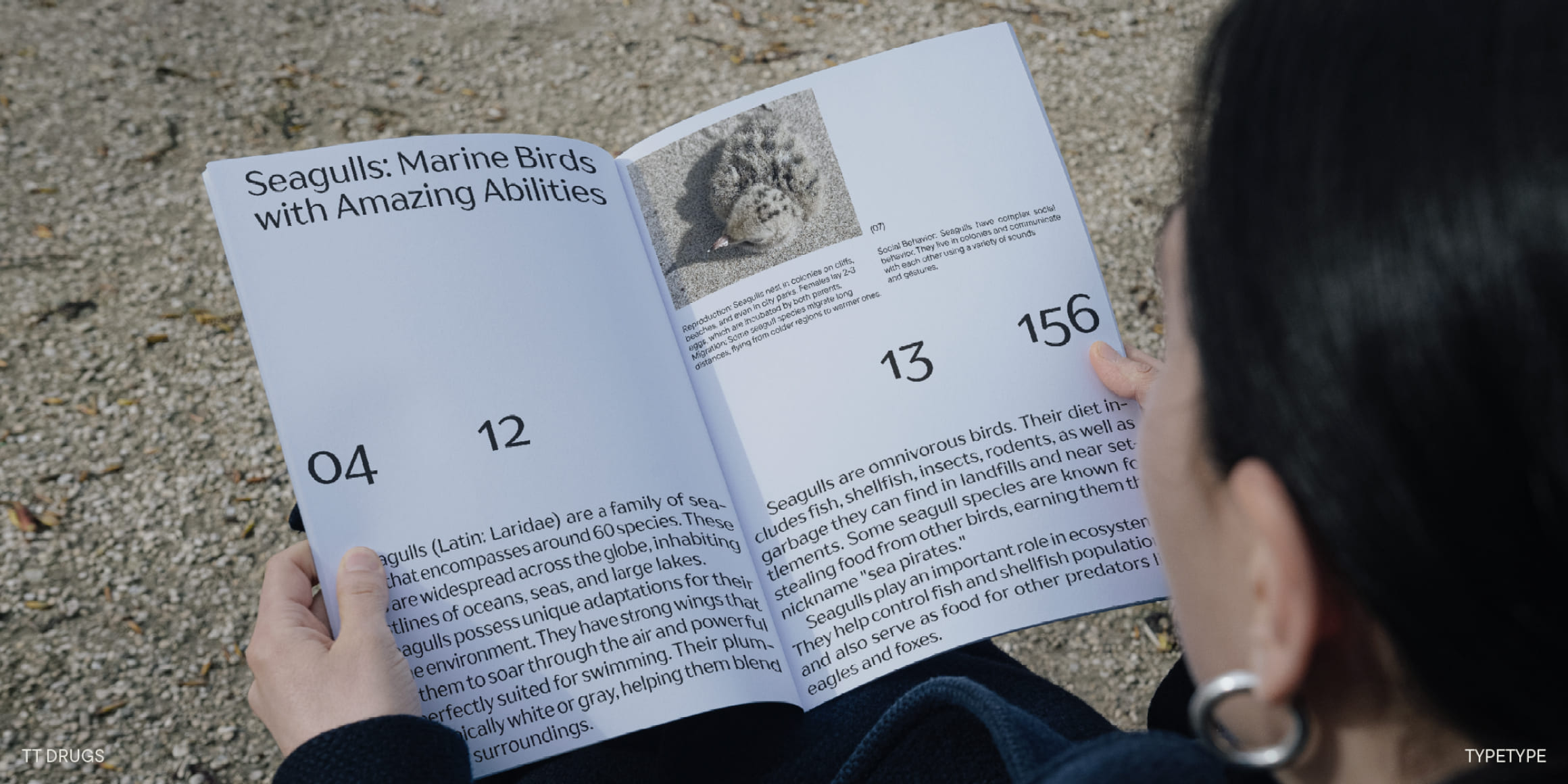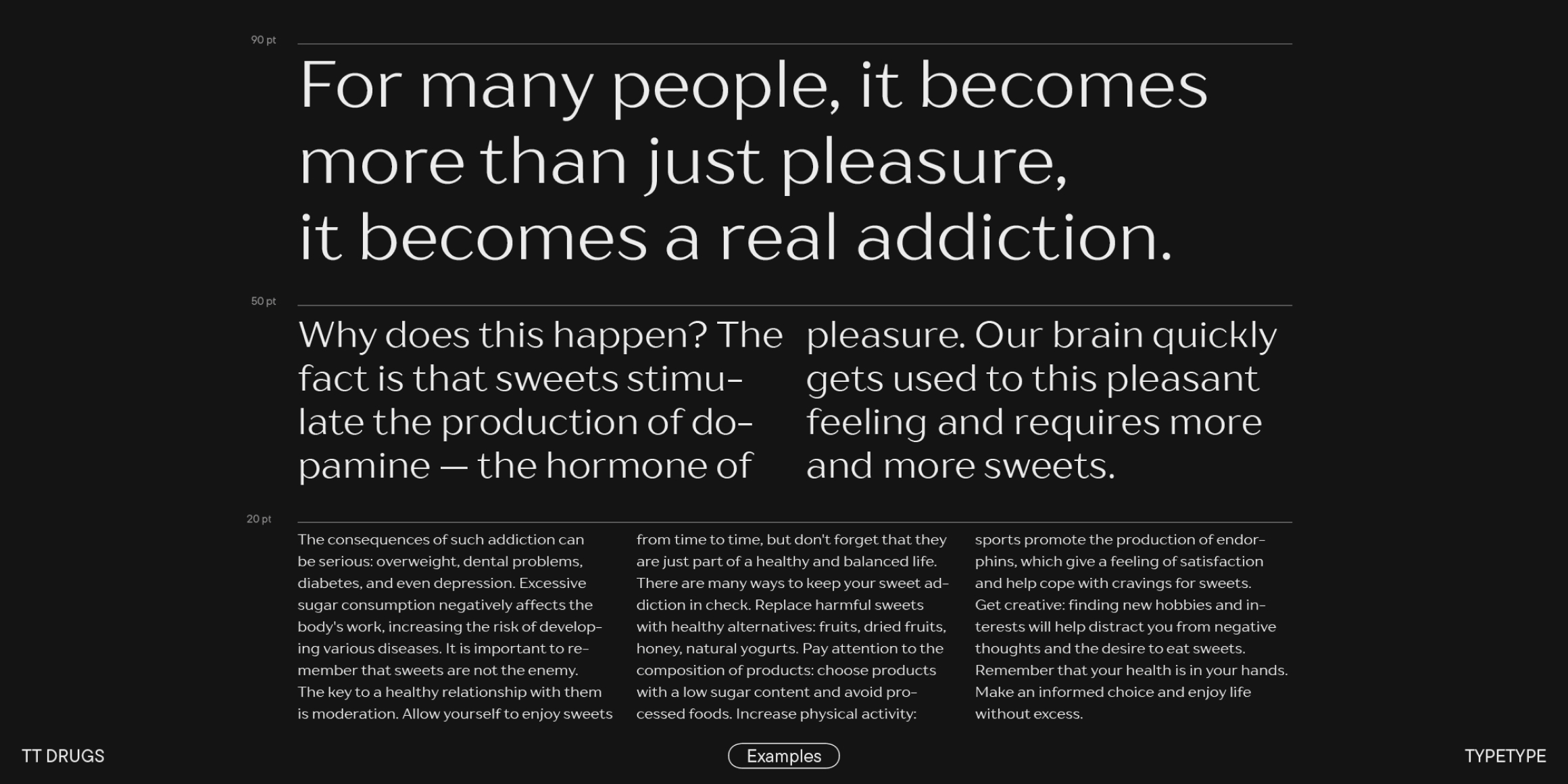
The name of the typeface reflects the story of its creation: the font family was initially intended to be used for the pharmaceutical industry. However, in practical use, the font revealed its multiple dimensions and seamlessly blended with differently themed projects. After the update, the typeface has become even more versatile, so now only its provocative title reminds us of the pharmaceutical past of TT Drugs.